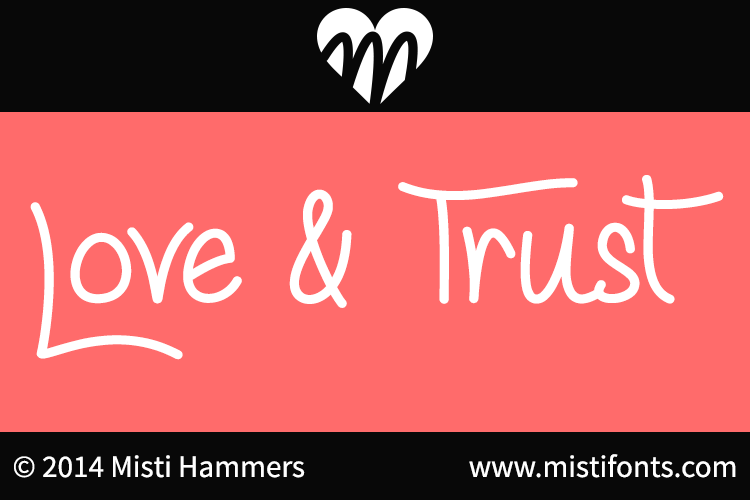
Love & Trust (Hearted) by Misti's Fonts
Playful script font with rounded edges and whimsical charm, ideal for handmade or vintage-inspired designs.
Misti Hammers is a font designer in Germany who focuses on script, handwritten fonts.